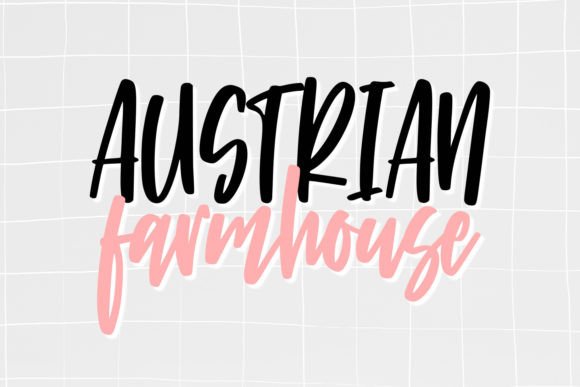
The Austrian Farmhouse Font: A Natural Beauty for Your Designs
Have you ever been in the middle of a design project, and suddenly, you’re stuck on finding the perfect font? I recall a recent experience where I was working on a client’s branding project, and I just couldn’t find a font that felt right. The client wanted something elegant, yet simple; something that would convey a sense of natural beauty. That’s when I stumbled upon the Austrian Farmhouse font, and it was love at first sight! 💕
An Honest Review: The Good and the Quirky
So, what makes the Austrian Farmhouse font so special? Let’s dive into the good stuff first! 😊
• ✨ Natural Handwriting Style: Austrian Farmhouse boasts a beautiful, natural handwriting style that feels both elegant and approachable.
• ✅ Ligatures for a Seamless Look: The font comes with ligatures, which make it look incredibly natural and fluid. This feature is especially useful for creating a cohesive, handwritten look.
• ✅ Versatility: Whether you’re working on t-shirt designs, quotes, mugs, tote bag designs, cards, banners, or social media projects, this font fits right in.
Now, let’s talk about a couple of quirks. 🤔
• ⚠️ Limited Character Set: While the font has a comprehensive character set, there might be some less common characters or special glyphs that are not included.
• ⚠️ Requires OpenType Support: To get the most out of this font, especially with ligatures and stylistic alternates, you need to use software that supports OpenType features.
The Story Behind Austrian Farmhouse
The Austrian Farmhouse font was inspired by the traditional Austrian countryside. The creator aimed to capture the essence of natural, elegant handwriting that could be used across various design projects. The result is a font that feels both rustic and refined.
Q: What is the Austrian Farmhouse font best used for?
A: Austrian Farmhouse is versatile and can be used for a wide range of projects, including t-shirt designs, quotes, mugs, tote bag designs, cards, banners, and social media graphics.
Q: Does the Austrian Farmhouse font support ligatures?
A: Yes, the Austrian Farmhouse font comes with ligatures, which make the text look more natural and fluid.
Q: Is the Austrian Farmhouse font easy to read?
A: Yes, despite its elegant and natural style, the Austrian Farmhouse font is designed to be legible and easy to read, making it suitable for both short phrases and longer texts.